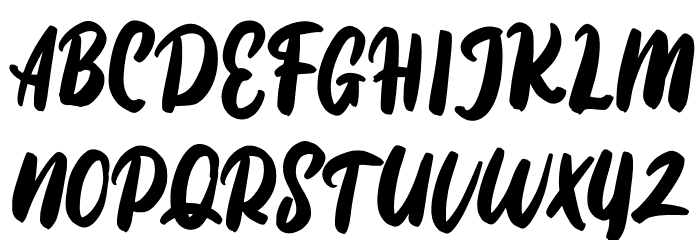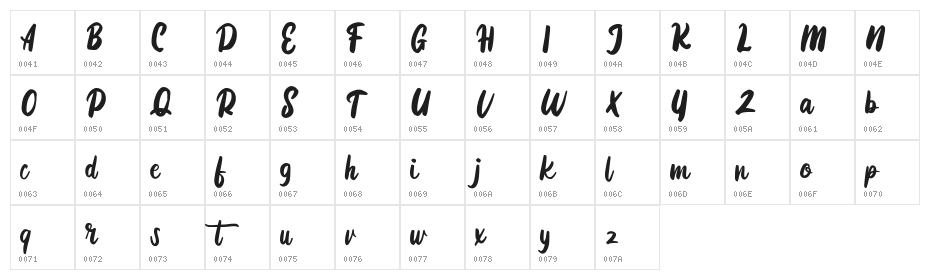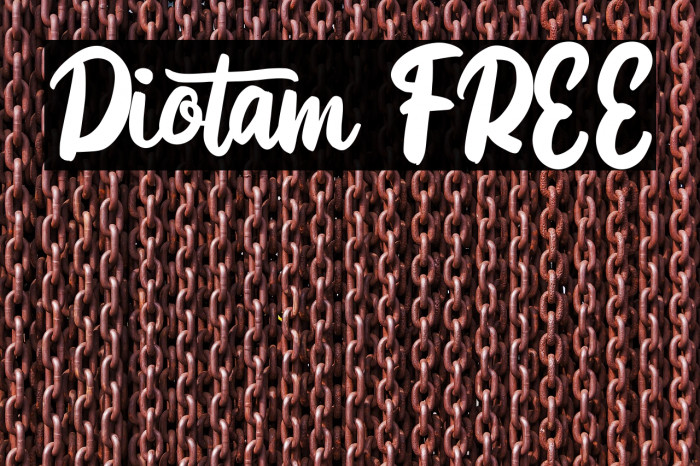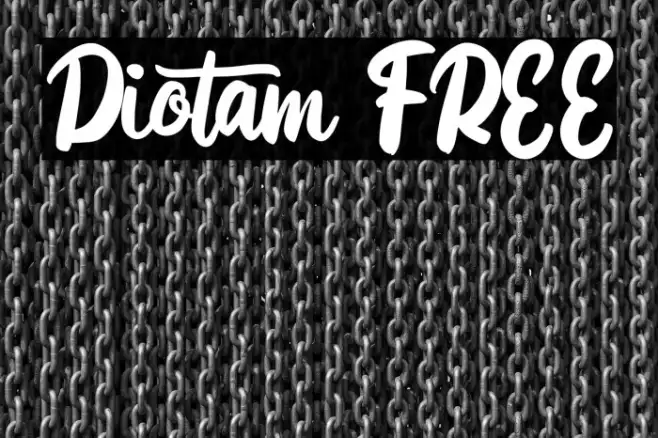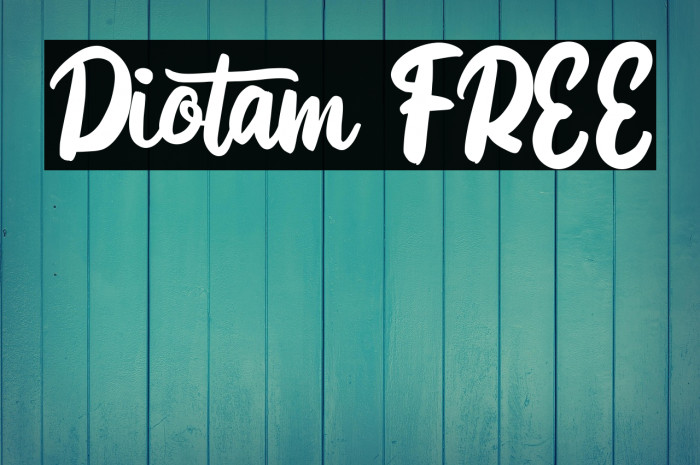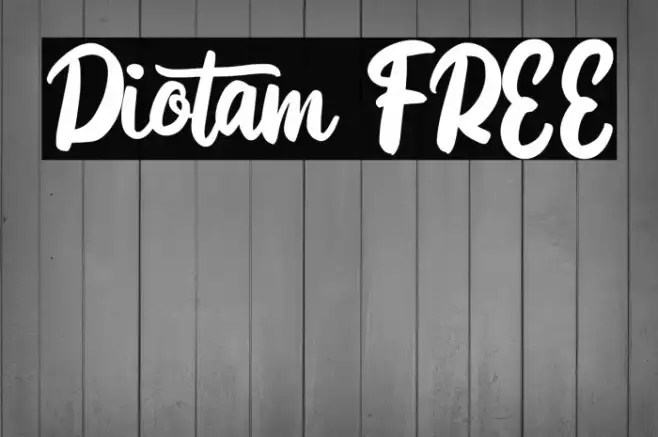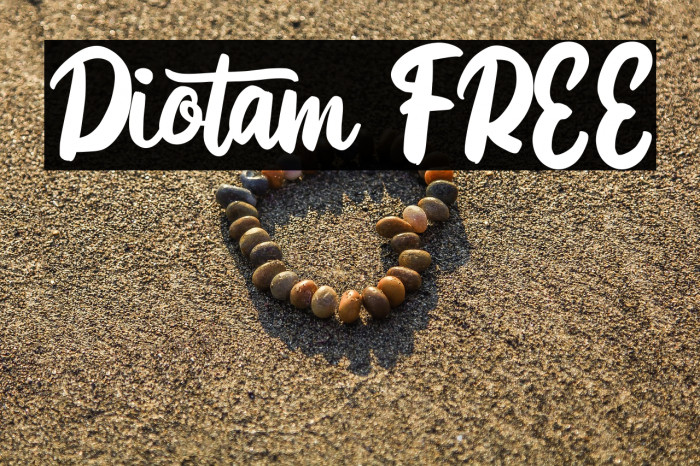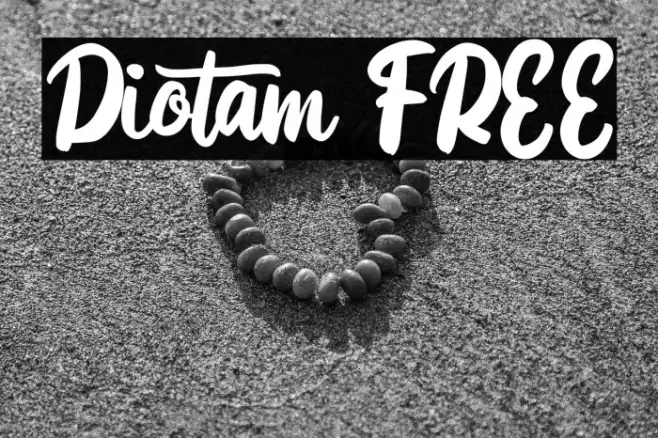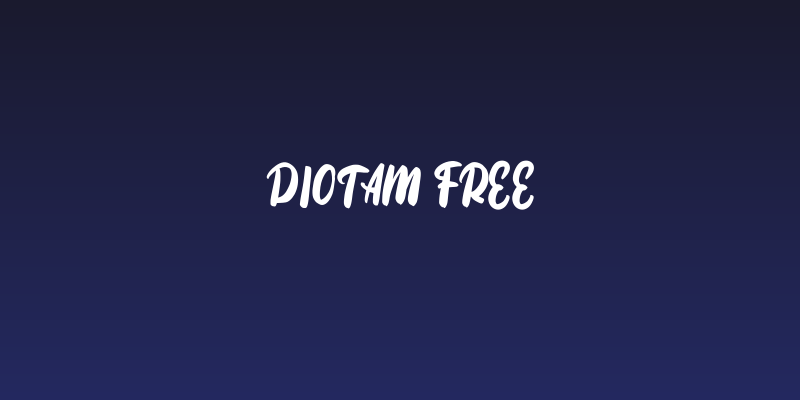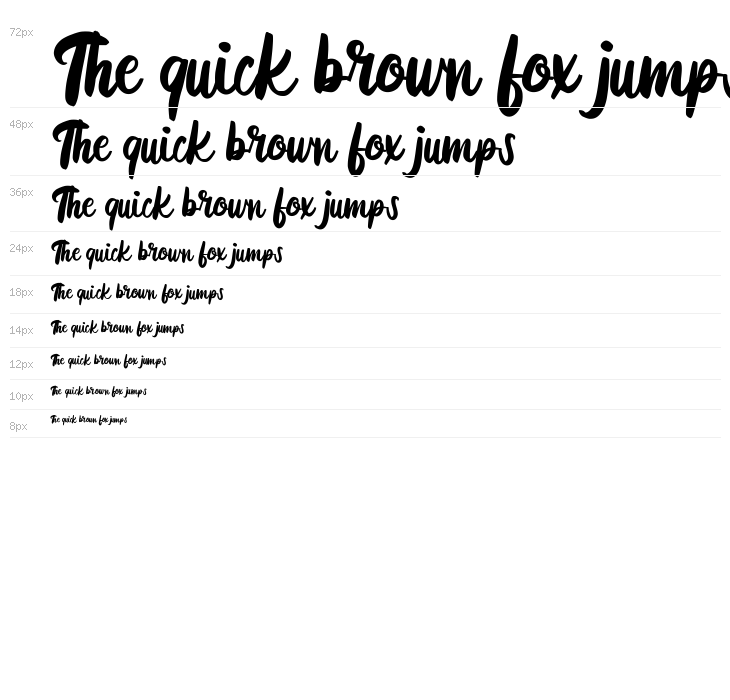
Diotam FREE Font
Diotam FREE Description
This font features a bold, expressive script style with a handwritten feel. The letters are connected, creating a fluid and dynamic appearance. The strokes are thick and consistent, giving the font a strong presence. It has a playful yet elegant look, suitable for creative and artistic projects. The uppercase and lowercase letters are well-balanced, and the numbers and special characters maintain the same lively style. This font is perfect for making a statement in any design.
| Proposed Projects | Ideal for branding, invitations, posters, and social media graphics. |